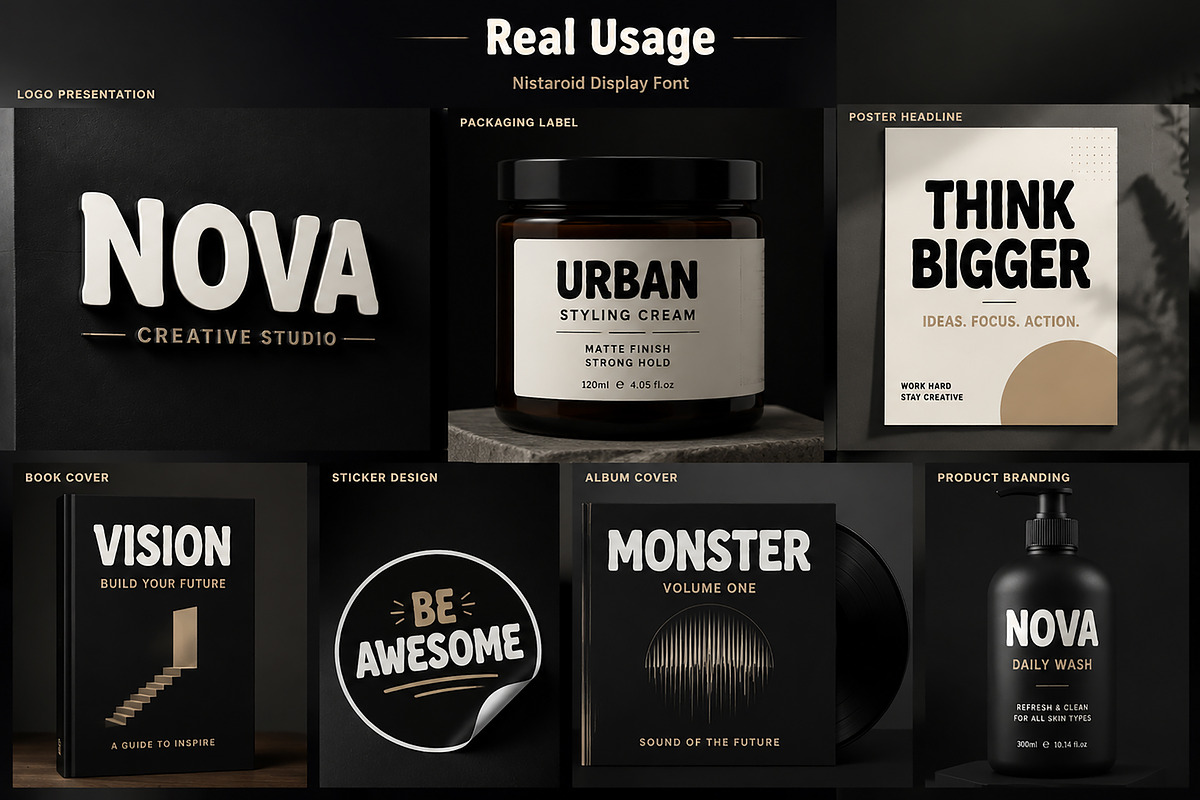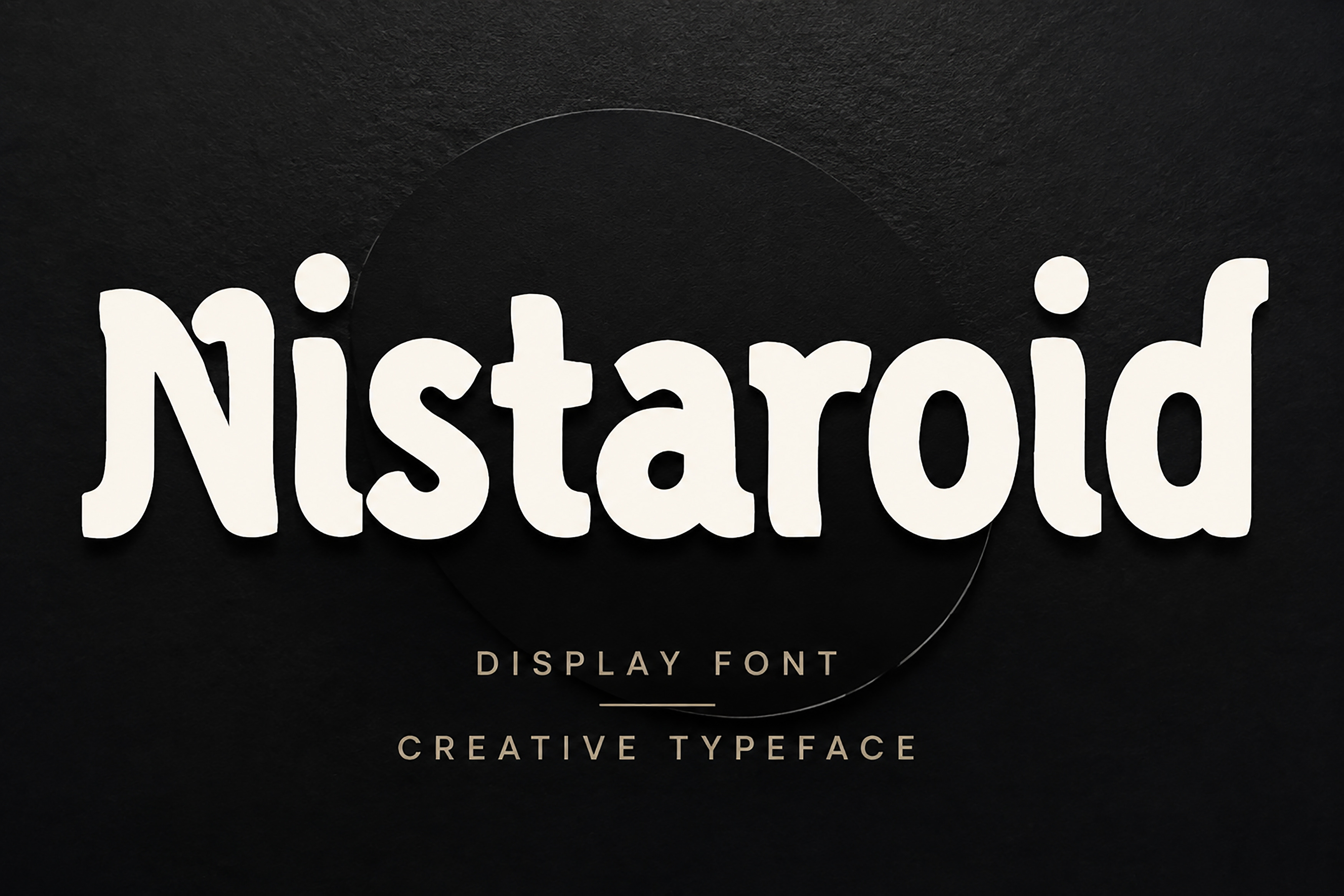
Nistaroid – Bold Display Typeface
Nistaroid is a bold and playful display font designed to bring a strong visual impact to your creative projects. With its unique rounded letterforms and modern retro personality, Nistaroid is perfect for eye-catching headlines, branding, posters, packaging, logos, social media designs, and more.
This typeface combines a fun, energetic style with a professional display feel, making it a great choice for designers who want their work to stand out.
Brand Identity
Poster Design
Product Branding
Album Covers
Stickers
Advertising Materials
Creative Headlines
✓ Bold Display Typeface
✓ Unique Rounded Letter Style
✓ Modern Retro Personality
✓ High Impact Letterforms
✓ Perfect for Branding & Headlines
✓ Easy to Use in Creative Projects
Bring a bold and memorable personality to your designs with Nistaroid — a creative display font made for modern designers.